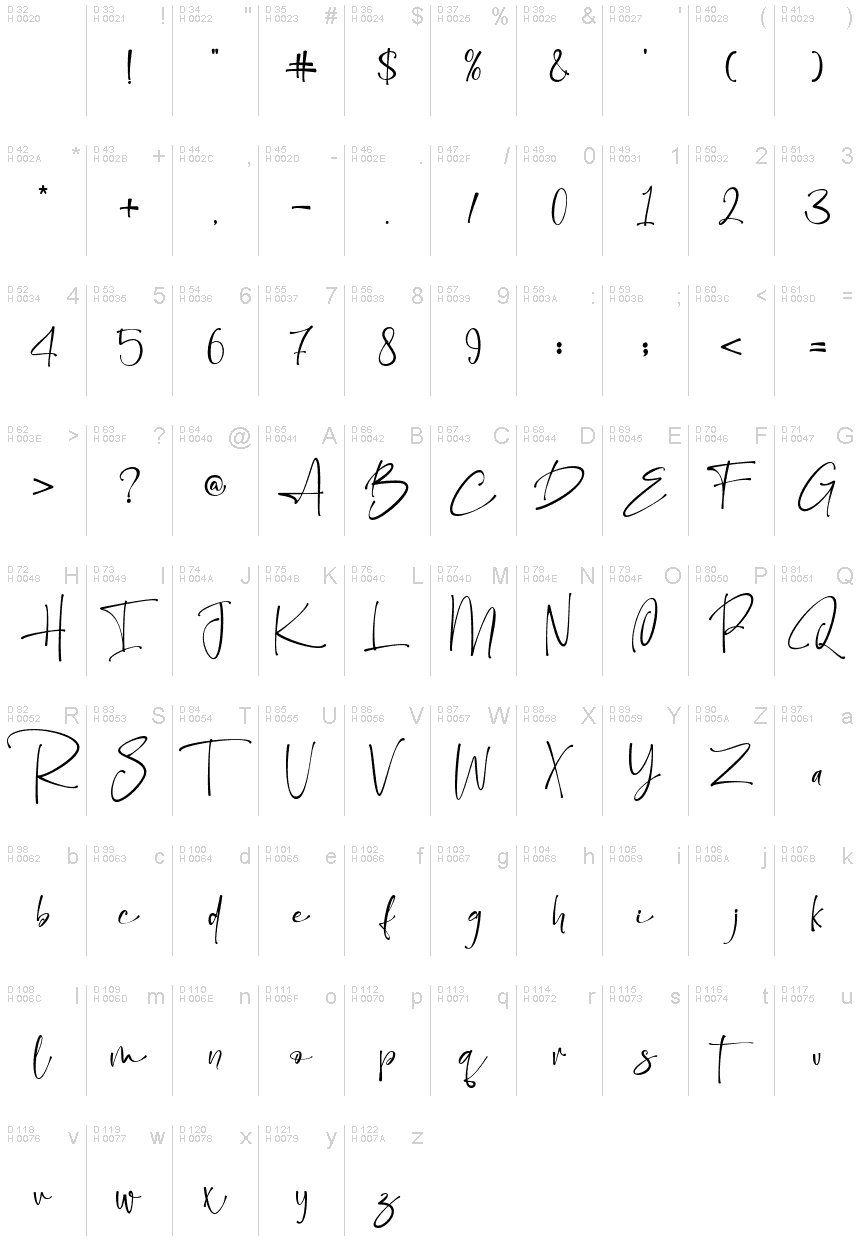
Christmas Worship, a signature handwritten font created by Letterara, is perfect for adding a unique and personal touch to any project. Whether you're designing holiday cards or crafting an inspirational quote poster, this light and beautiful font will bring a festive sparkle to your work. With its delicate lines and signature style, Christmas Worship is also ideal for thank you notes and other special messages.